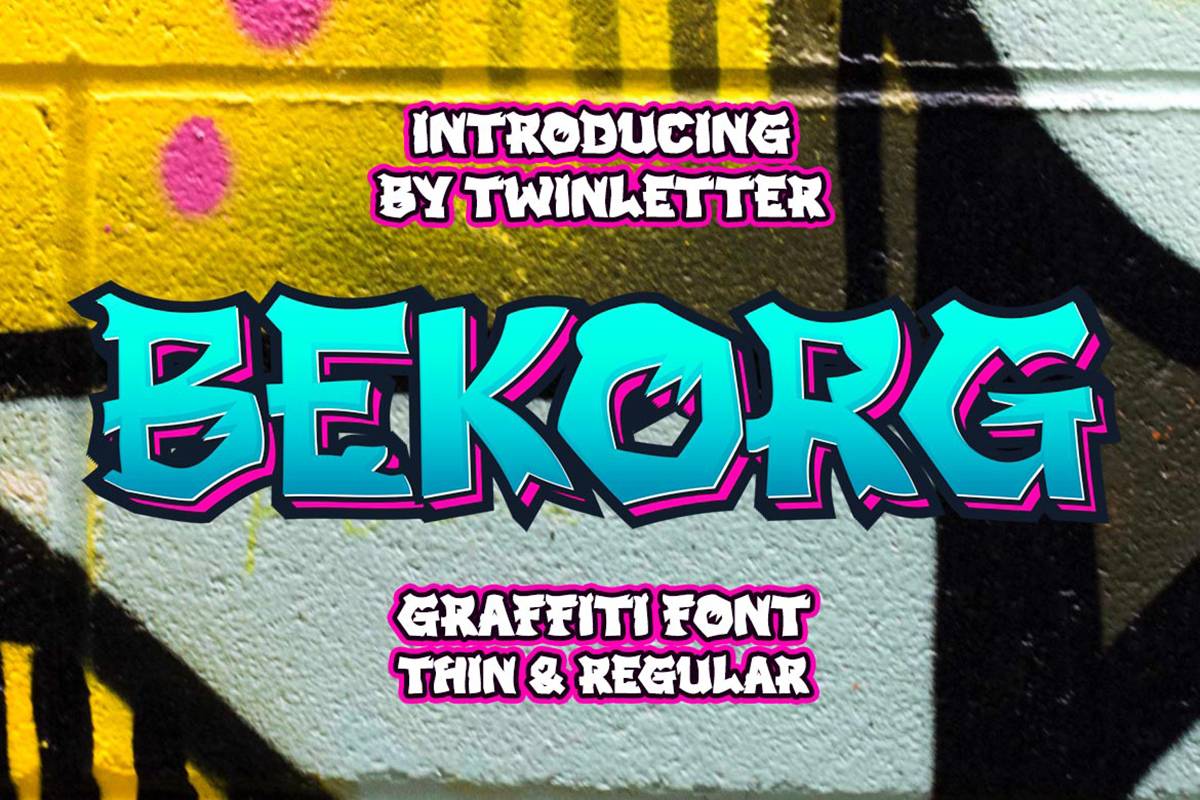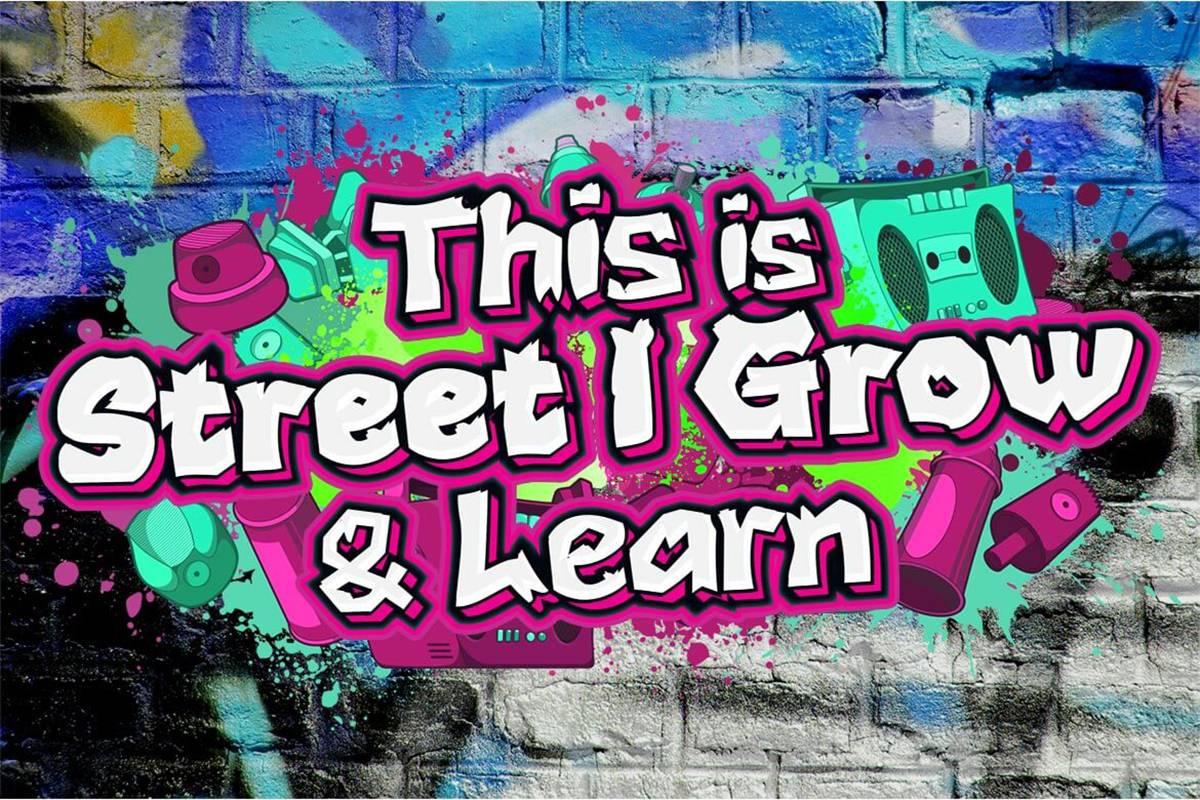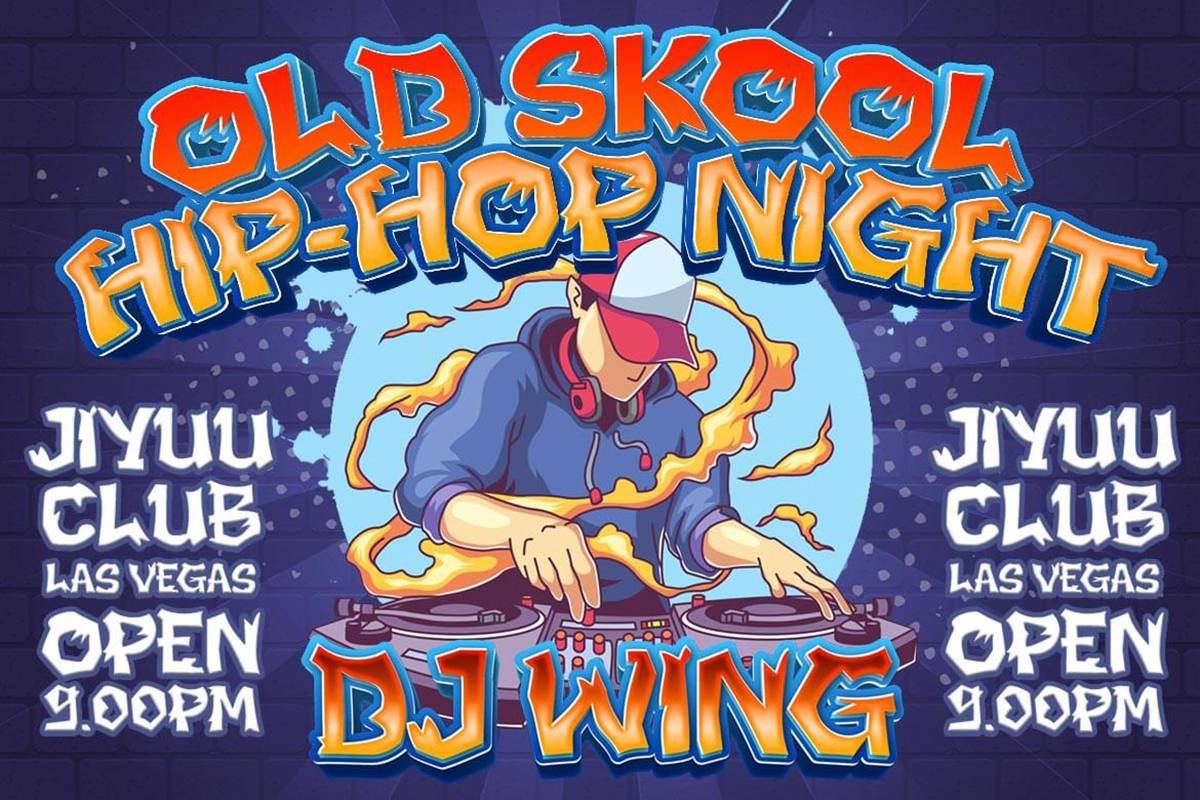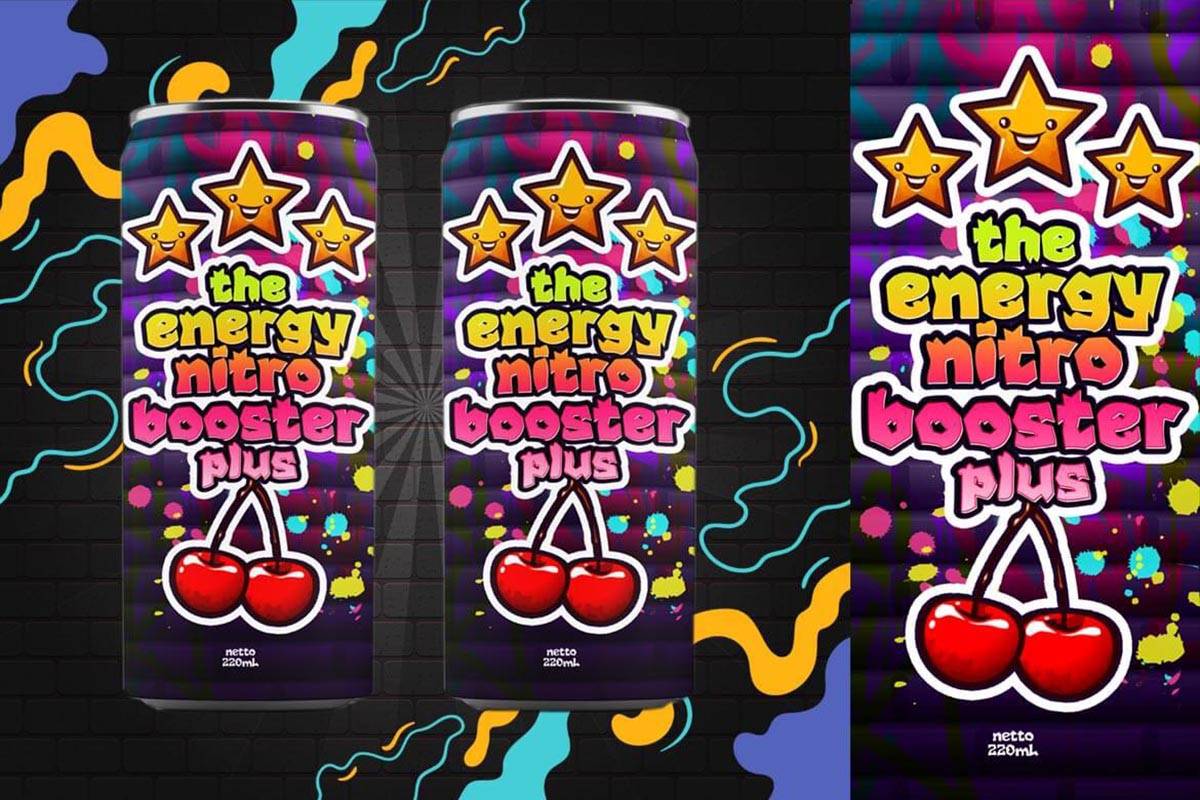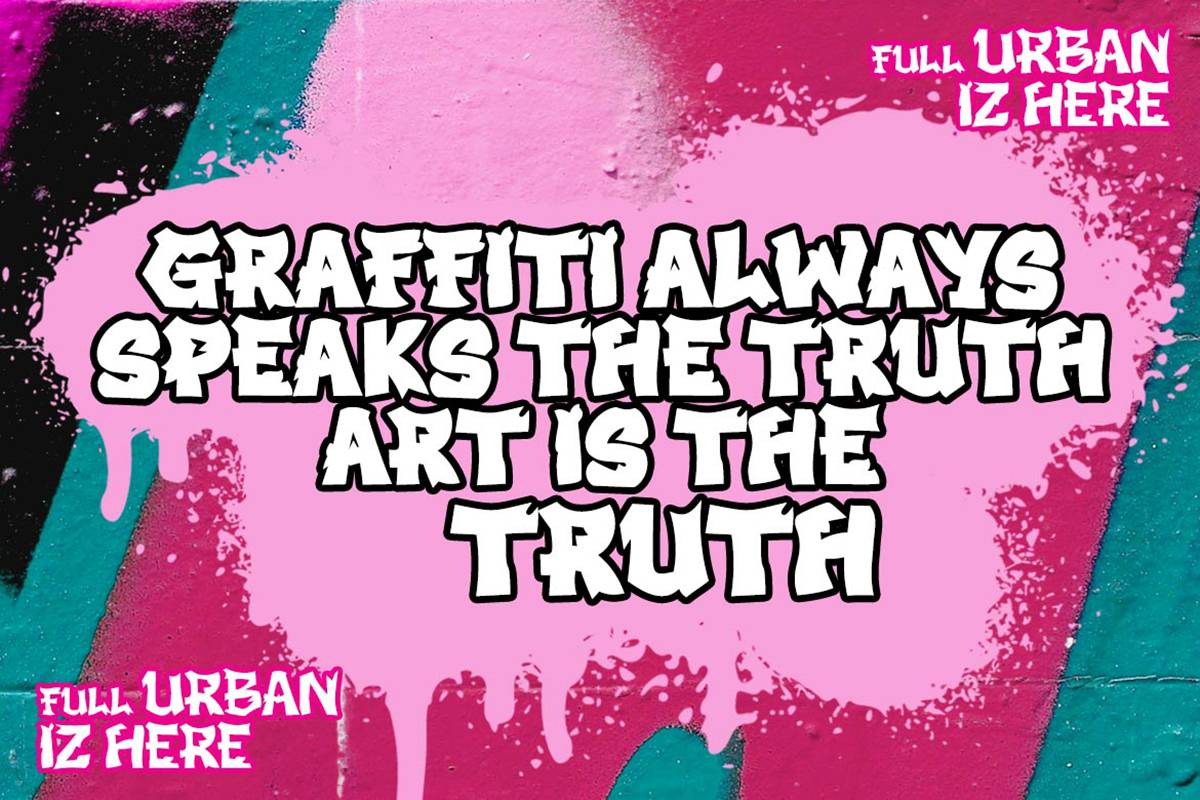
Bekorg is a bold, decorative display font with a playful, edgy vibe characterized by sharp, irregular shapes and heavy strokes that give it a strong presence. Its unique, chunky letterforms with contrasting angles make it ideal for creative branding, posters, or headlines where a dramatic and unconventional style is desired. This font works best in designs aiming for a bold, artistic statement rather than long body text.
Bekorg Font
About Bekorg Font